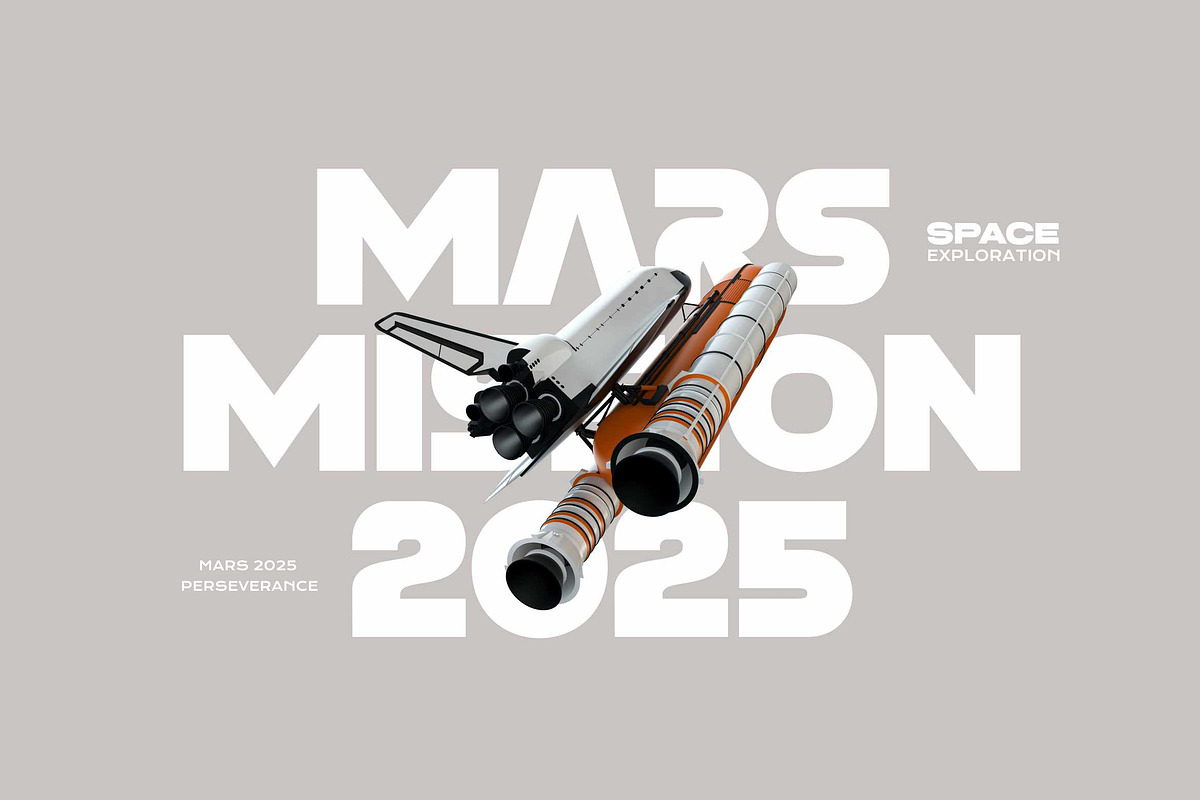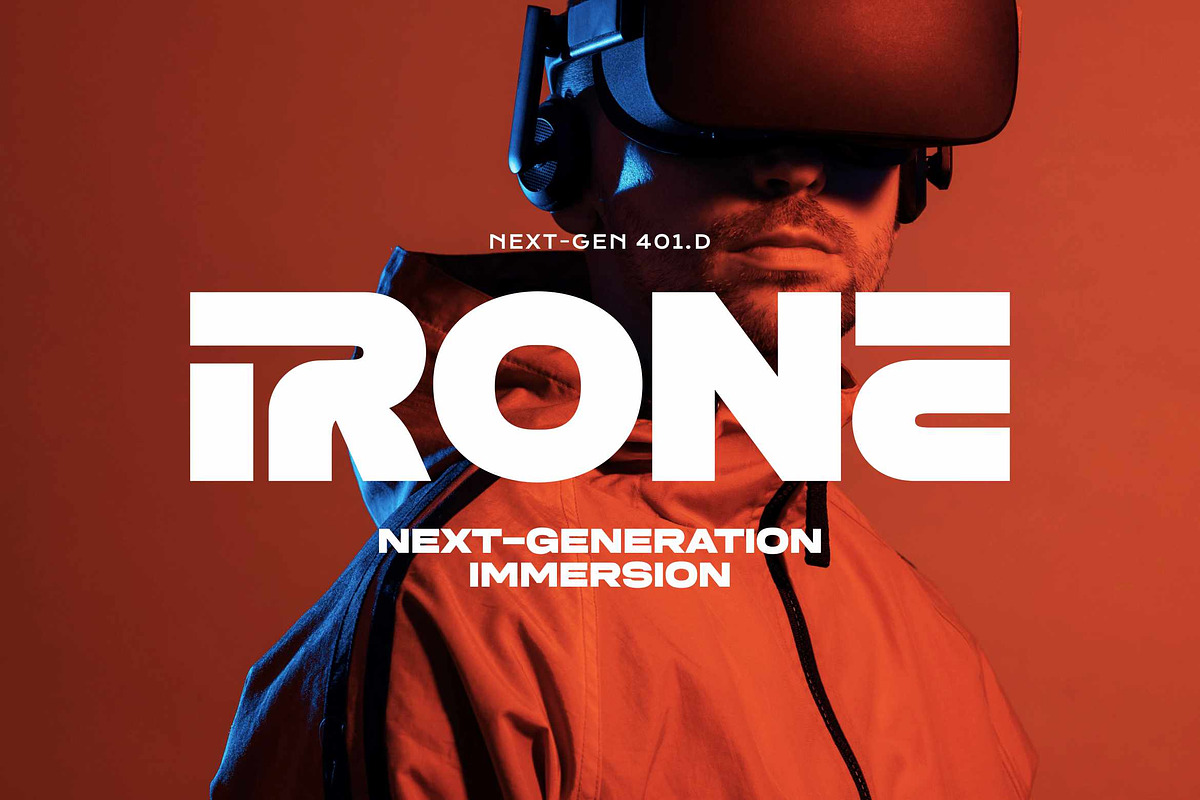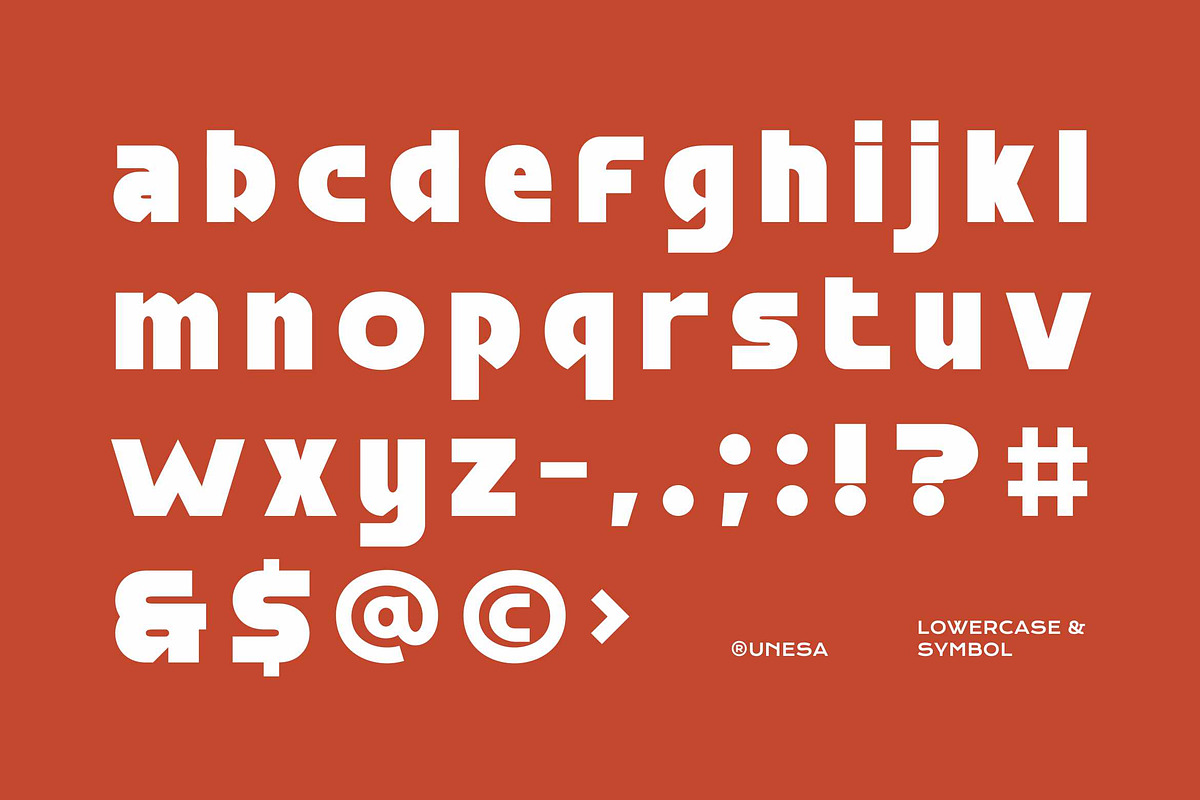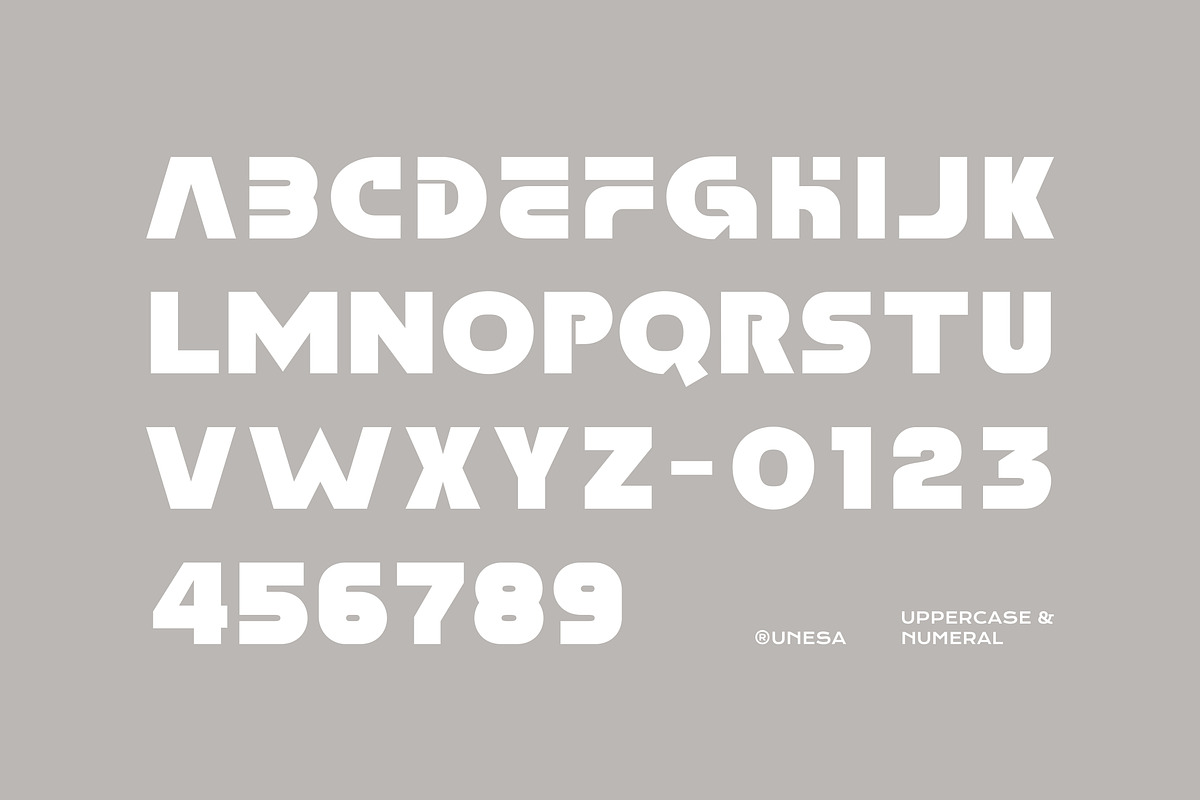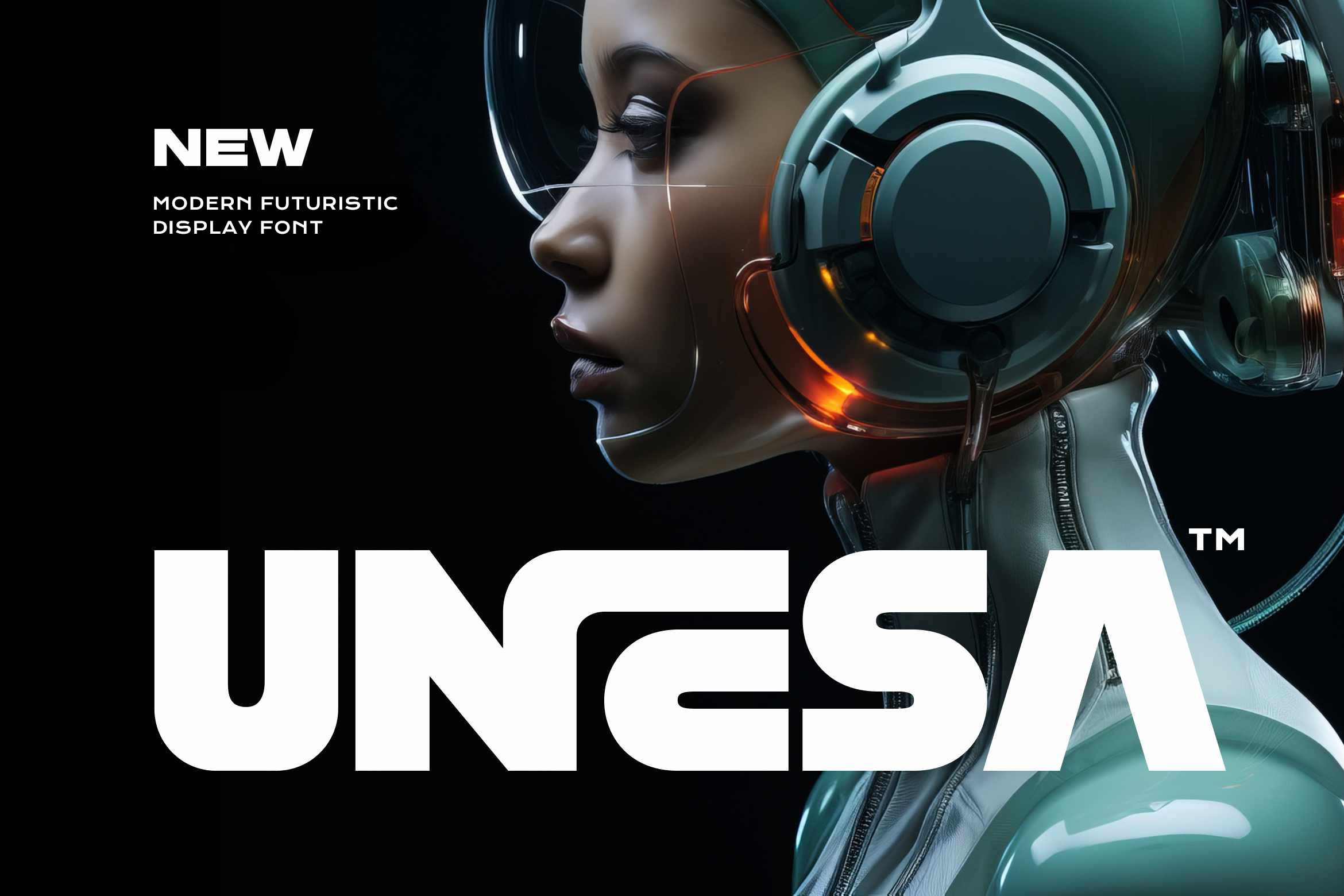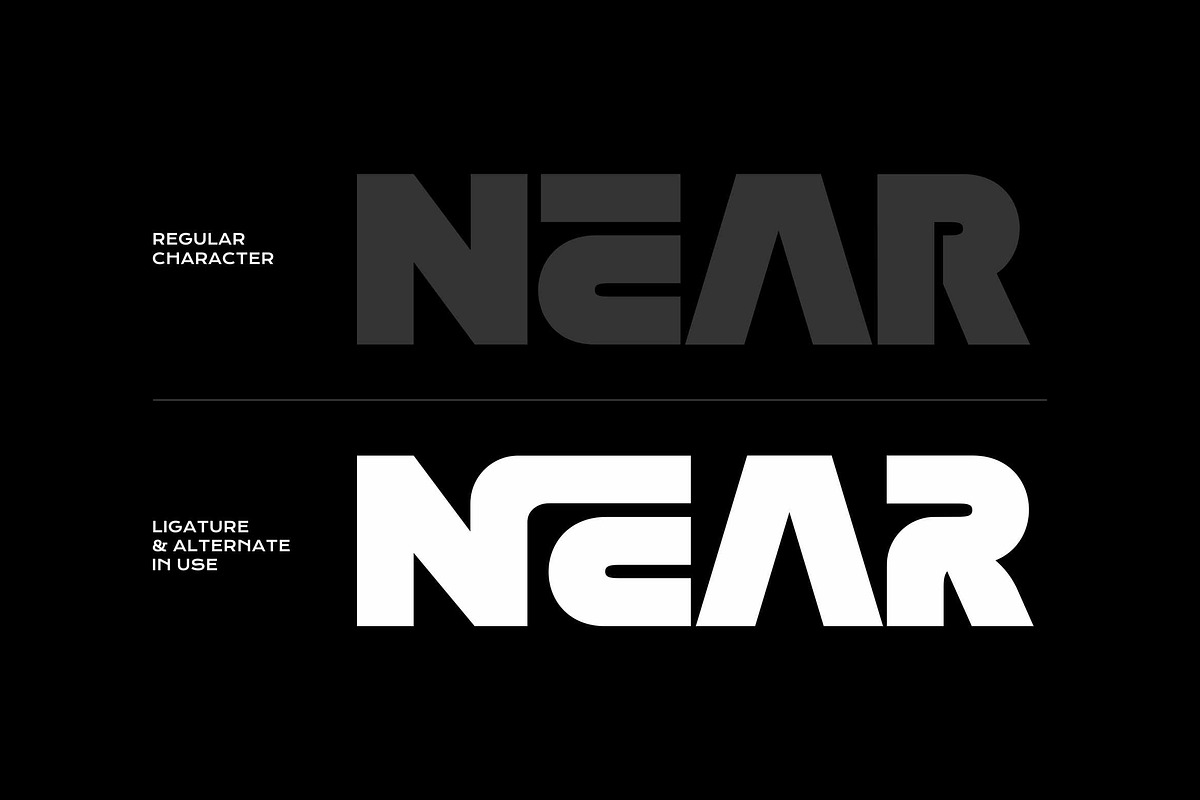
Unesa - Modern Futuristic Typeface
Step into the future with Unesa, a modern futuristic font designed to command attention. Unesa embodies the spirit of science fiction, technology, and space exploration with its meticulously crafted letterforms. Its strong, geometric structure and wide stance give it a powerful and stable presence, making it perfect for headlines, titles, and logo.
The defining characteristic of Unesa is its unique system of stencil-like gaps and cutouts, create a distinct high-tech, mechanical aesthetic. Create unique logotypes for tech startups, gaming clans, or cinematic titles with just a few clicks.
Unesa ideal suited for technology‑driven themes, gaming titles, science fiction narratives, product packaging, sports designs, and motivational slogans to any text demanding a strong, bold character and persuasive advertising impact.
- Uppercase and Lowecase Characters.
- PUA Encoded Characters.
- Numerals and Punctuations.
- Alternates and Ligatures.
- Multilingual Support.